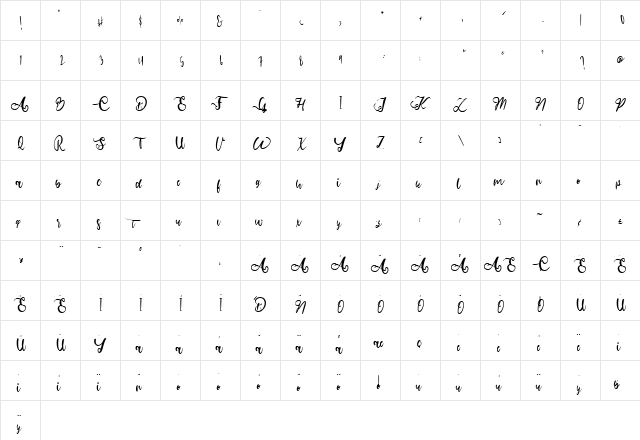
Abimanyu Regular Font Preview
Abimanyu Regular
Abimanyu Regular Font Details
Design Context for Abimanyu Typeface
Abimanyu is a composed and adaptable typeface that performs quietly and consistently across a wide range of design contexts.